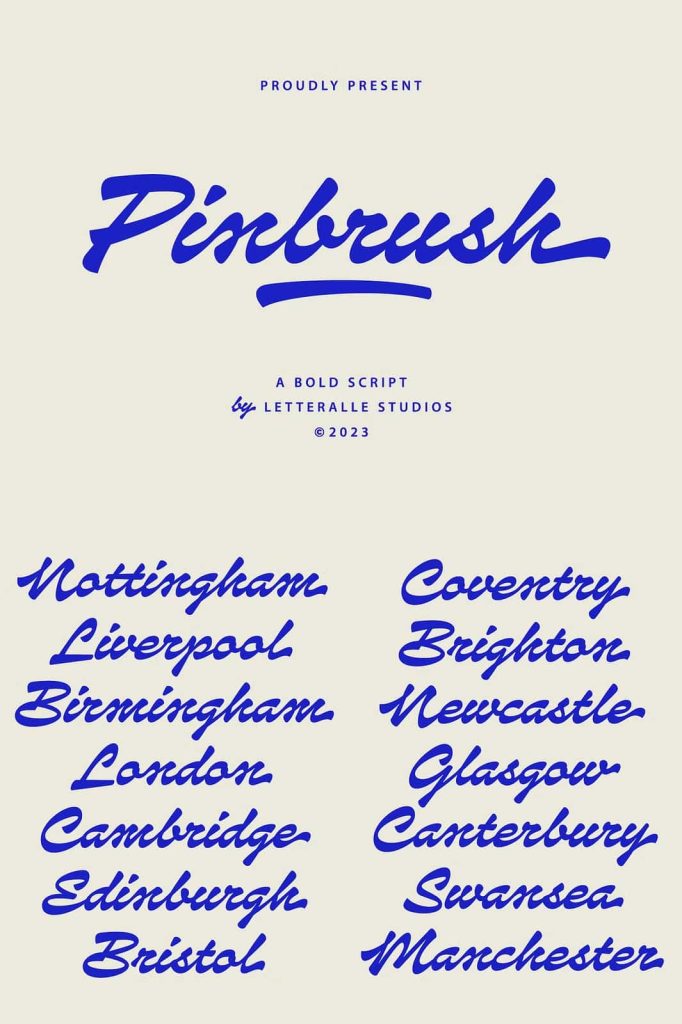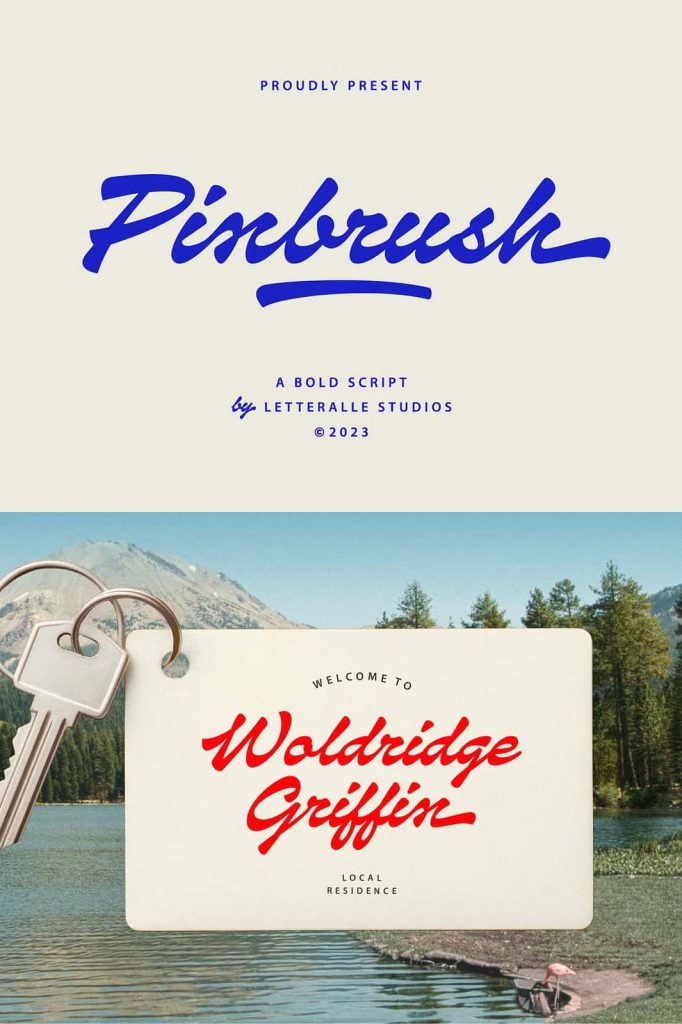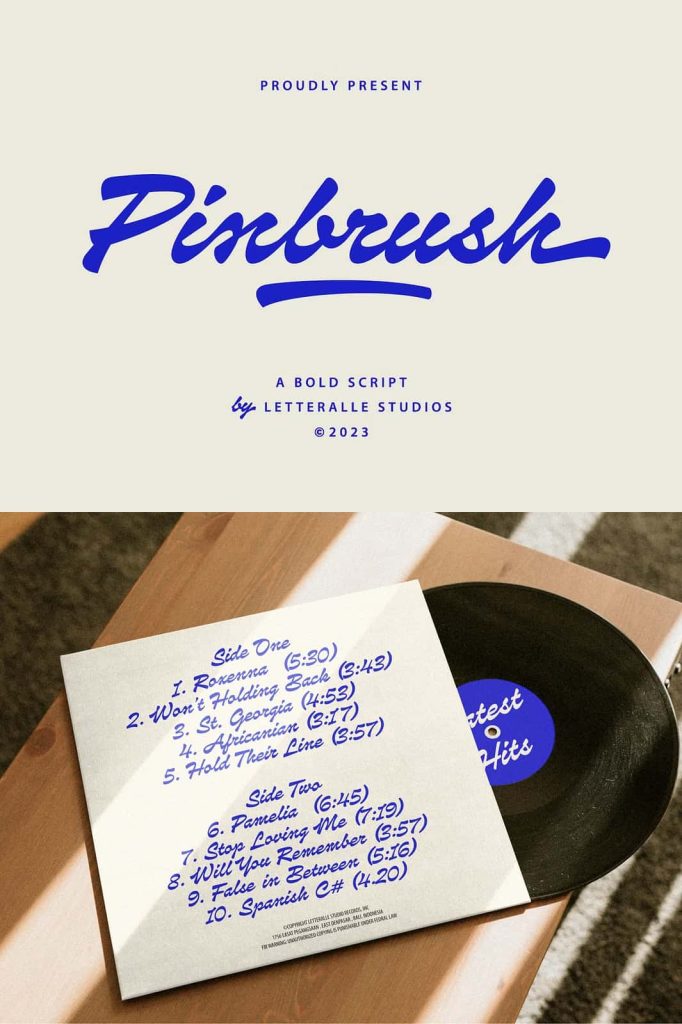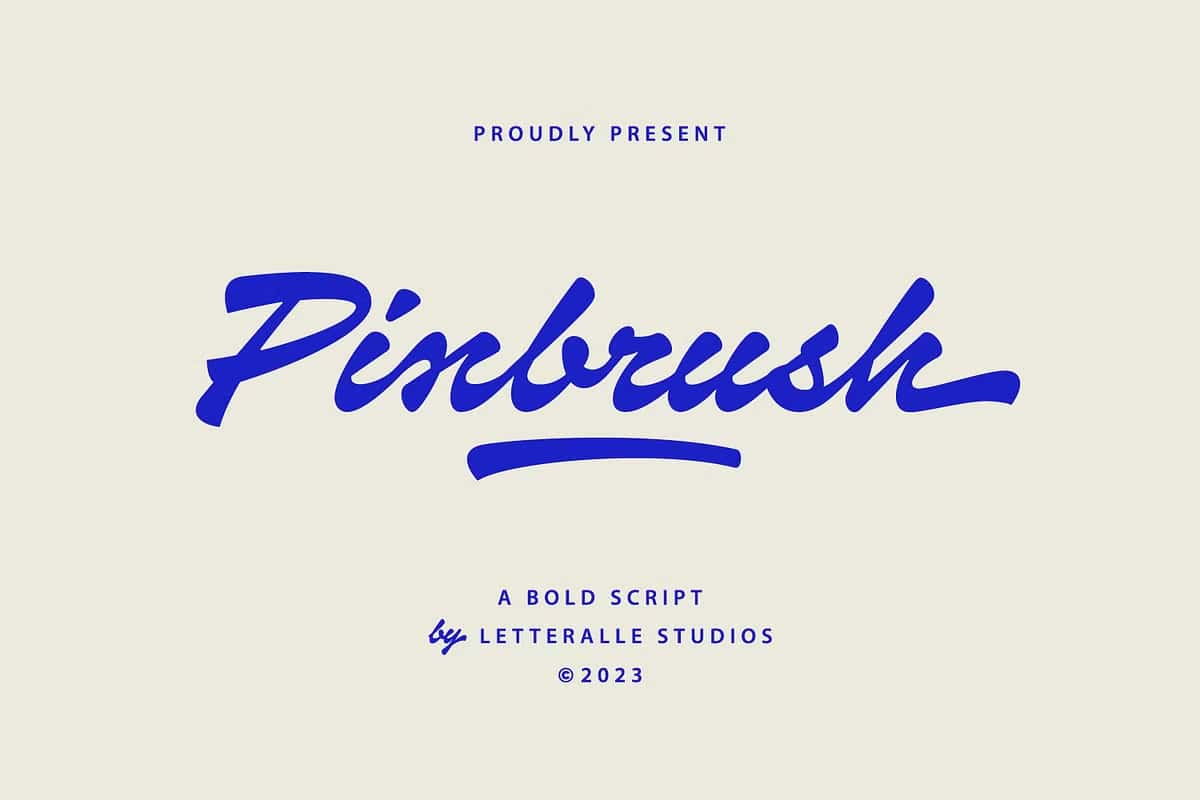
Pinbrush Script FontcoreografyJuly 14, 2025Fonts Meet Pinbrush, the bold script font that brings retro vibes and pop culture coolness to your designs. Download